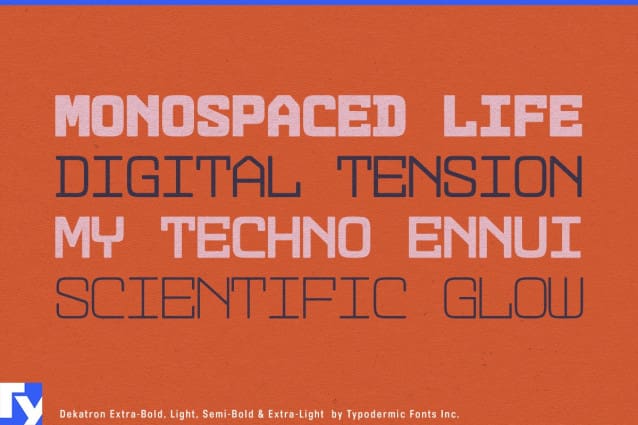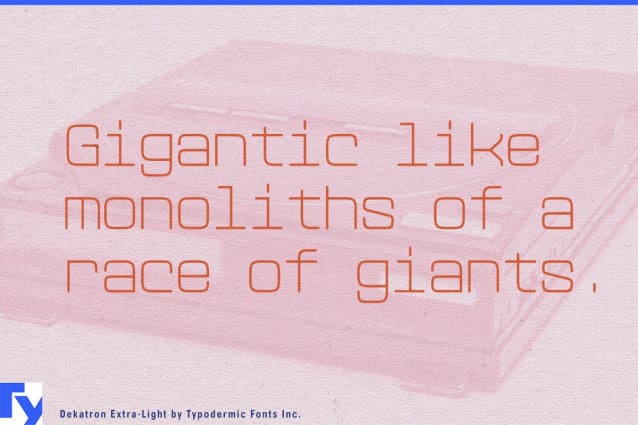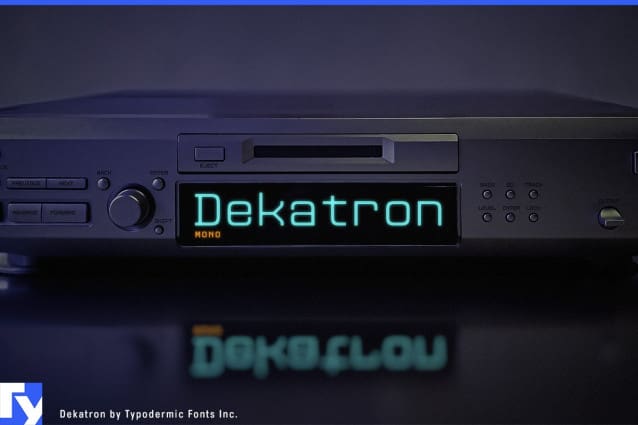
Dekatron Font Family
Dekatron Font Family,  from Typodermic Fonts, the epitome of precision. Crafted for the modern era, it is a monospaced marvel that speaks in the language of the future. Its design, rooted in the realms of science and technology, offers a squarish and futuristic aesthetic that is both clear and precise.
With six meticulously engineered weights—extra-light, light, regular, semi-bold, bold, and extra-bold—Dekatron delivers versatility and sophistication to any project. Each weight is designed with precision rounded ends, lending an elegance to the clear, technological vibe. The subtle superelliptical tension in all corners not only adds a warm, analogue sheen but also creates an inviting texture that bridges the gap between the digital and the tactile.
Dekatron Font is a design statement. Its monospaced nature brings a unique practicality, making perfect for industries and projects where a futuristic, robotic, and scientific voice is paramount. Its elegant sophistication, combined with a technical vibe, makes it suitable for a wide range of applications—from technical documentation and sci-fi movie posters to digital platforms and beyond.
Embrace the future of monospaced typography with Dekatron Font. Let your projects stand out with a font that offers not just practicality, but a forward-thinking aesthetic that is second to none.